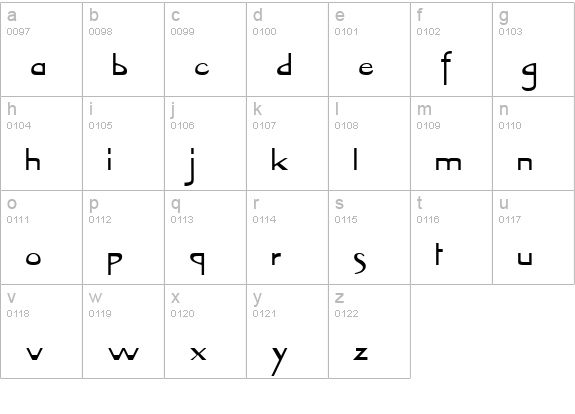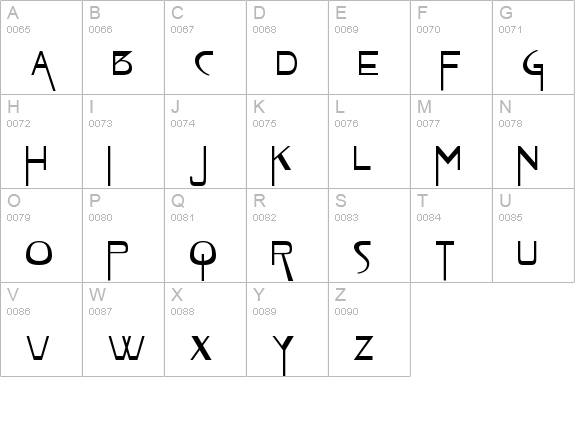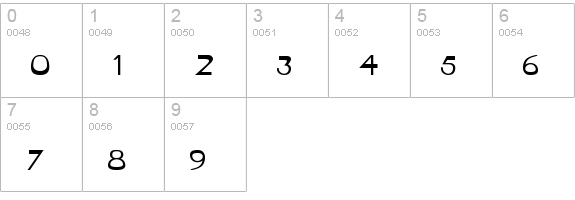
TabletExtended Normal Font Details
TabletExtended Normal is the standard, neutral variant in the TabletExtended typeface family \xE2\x80\x94 well suited to general body text, paragraphs, and standard typographic work.
TabletExtended Normal font is a versatile and modern typeface that is perfect for a wide range of design projects. With its clean lines and balanced proportions, this font exudes professionalism and readability. Whether you are designing a website, creating a logo, or crafting a brochure, TabletExtended Normal font will add a touch of elegance and sophistication to your work. This font is not only visually appealing, but it is also incredibly user-friendly. Its extended character set includes a variety of special characters, punctuation marks, and symbols, making it suitable for multiple languages and typographic needs. One of the best things about TabletExtended Normal font is that it is freely available to download at FontsMarket.com. You can easily access this font and start using it in your projects without any hassle. It is a fantastic opportunity to enhance your design work without having to spend a dime. Whether you are a professional designer or a hobbyist, TabletExtended Normal font is a must-have addition to your font collection. Its versatility, readability, and elegant design make it a standout choice for any project. So why wait? Visit FontsMarket.com today and start downloading this amazing font for free.